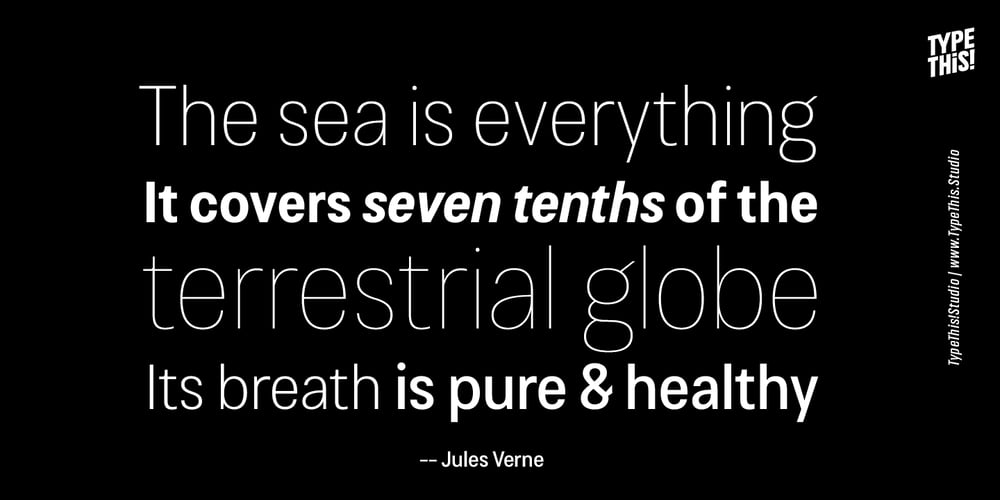
Cosima Font Family was designed by Anita Jürgeleit and published by TypeThis!Studio. Cosima contains 18 styles and family package options. Cosima is an effective workhorse with a touch of pointy elegance, designed by Anita Jürgeleit.Launching your new brand or creating a new user interface for your mobile devices – selecting characteristic typefaces is important, whether you’re creating app design, magazine or editorial – typography is always the essential part.www.typethis.studio